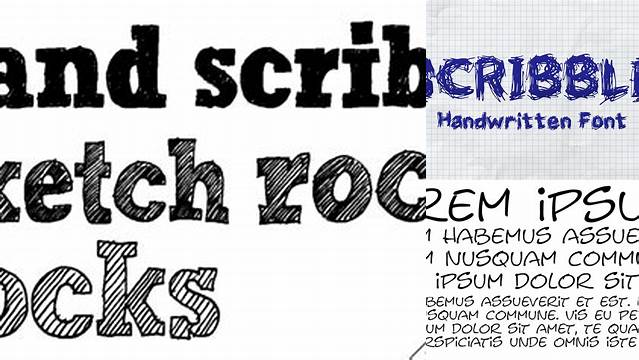
Hand Scribble Fonts: Free Downloads & Invert Styles
Hey guys! Ever wanted to give your projects that cool, hand-drawn vibe? You know, that effortlessly stylish look that says, "Hey, I'm creative!" Well, you're in luck! We're diving deep into the world of hand scribble fonts – those awesome typefaces that mimic the quirky charm of handwriting and sketches. We'll be exploring everything from where to find them for free to how to tweak them to perfectly match your vision, including inverting them for a unique twist. So, buckle up and let's get scribbly!
1. What are Hand Scribble Fonts?
So, what exactly are hand scribble fonts? Well, imagine the look of someone's handwriting or a quick sketch, but in font form. These fonts capture the imperfections and unique character of real handwriting, making them perfect for adding a personal touch to your designs. They range from playful and whimsical to edgy and artistic, and can be used in a ton of different projects. When choosing a hand scribble font, think about the overall mood you want to convey. A rough, scratchy font might be perfect for a horror-themed poster, while a more flowing, elegant scribble could be great for wedding invitations.
The Essence of Hand Scribble Fonts
Hand scribble fonts are all about capturing the imperfect charm of human handwriting. They mimic the natural variations in stroke width, letter spacing, and overall flow that you'd expect from a handwritten text. This makes them feel more authentic and less sterile than typical computer fonts. It's like giving your text a soul! These fonts often incorporate stylistic quirks like uneven baselines, slightly tilted letters, and varying letter connections. These imperfections are what give hand scribble fonts their unique personality and make them so visually appealing. Without these details, they'd just look like poorly designed regular fonts.
Versatility in Design
Don't think that hand scribble fonts are just for informal projects! They're surprisingly versatile and can be used in a wide range of design applications. From logos and branding to social media graphics and website headers, a well-chosen hand scribble font can add a touch of personality and flair. In fact, hand scribble fonts are incredibly versatile. They can be used for everything from eye-catching headlines and logos to adding a personal touch to invitations, greeting cards, and even website designs. The key is to choose the right font for the project's overall tone and style. A playful, bouncy scribble might be perfect for a children's book, while a more sophisticated, calligraphic scribble could be ideal for a wedding invitation.
Why Choose Hand Scribble Fonts?
There are tons of reasons to choose hand scribble fonts for your projects. They add a personal touch, make your designs stand out, and can create a feeling of authenticity. They're also great for projects where you want to convey a sense of fun, creativity, or informality. Using hand scribble fonts can be a game-changer in adding visual interest and personality to your designs. They break away from the rigid uniformity of traditional fonts, injecting a sense of human touch and spontaneity. This can be particularly effective in projects where you want to create a connection with your audience, such as blog headers, social media posts, or even marketing materials. Imagine a handwritten note versus a typed letter – the former instantly feels more personal and engaging.
Diving into DaFont
DaFont is another go-to resource for free fonts. It has a huge library, organized into categories that make it easy to find what you're looking for. You'll find tons of hand scribble fonts here, ranging from playful and quirky to elegant and refined. DaFont is known for its extensive collection and well-organized categories. This makes it easy to browse through different styles of hand scribble fonts, from casual and whimsical to more formal and elegant. The site also allows you to preview the font with your own text, which is incredibly helpful for seeing how it will look in your projects. Like FontSpace, it's important to pay attention to the license information for each font, as some may have restrictions on commercial use.
The Power of Google Fonts
Google Fonts is a fantastic resource for high-quality, open-source fonts that are free for both personal and commercial use. While their selection of hand scribble fonts might not be as vast as FontSpace or DaFont, the fonts they do offer are consistently well-designed and easy to use on the web. Google Fonts offers a curated selection of fonts that are specifically designed for web use, making them a great choice if you're looking for a font to use on your website or blog. While their hand scribble font options might be a bit more limited than some other sites, the fonts they do have are typically very versatile and well-crafted. Plus, Google Fonts integrates seamlessly with many web design platforms, making it easy to embed them directly into your website.
3. Free Download Considerations
So, you've found a font you love! Before you hit that download button, there are a few things to keep in mind. First, always check the license. Some fonts are free for personal use but require a license for commercial projects. Second, think about the font's readability. A super fancy scribble might look cool, but if it's hard to read, it's not going to be very effective. Finally, consider the file format. Most fonts come in .ttf or .otf format, which are compatible with most design software. Always check the font's license agreement before you download it. This will tell you how you can legally use the font, whether it's for personal projects, commercial projects, or both. Some fonts may have restrictions on modification or redistribution, so it's important to be aware of these before you start using the font. Remember, using a font without the proper license can lead to legal trouble, so it's always better to be safe than sorry.
How to Invert Fonts in Design Software
Most design software, like Adobe Photoshop, Illustrator, and InDesign, makes inverting fonts super easy. You can usually do it by changing the text color to white (or your desired background color) and the background color to black (or your desired text color). Some programs also have specific